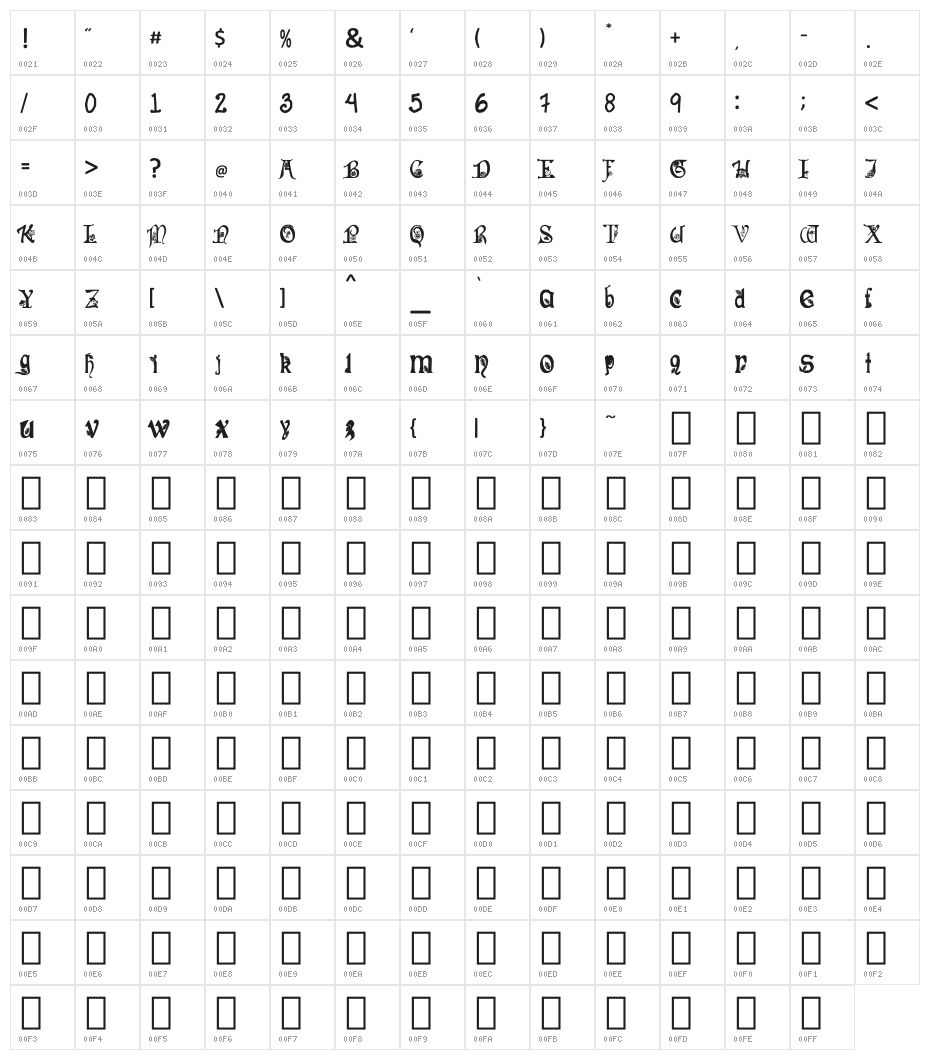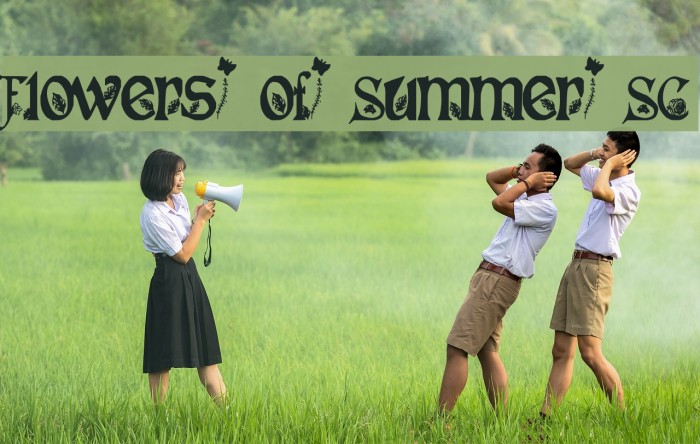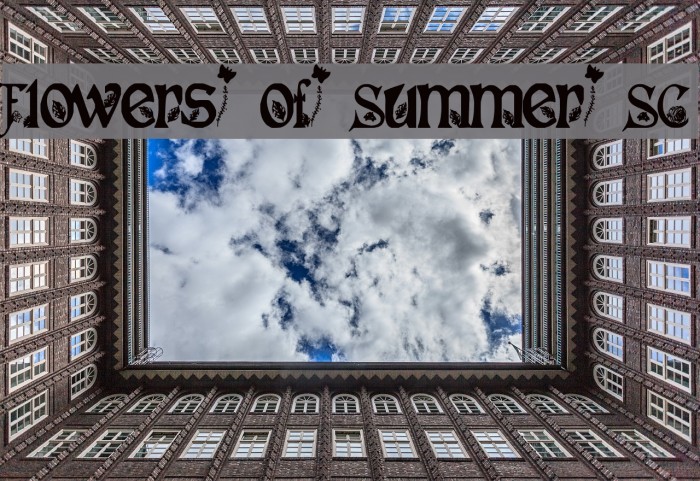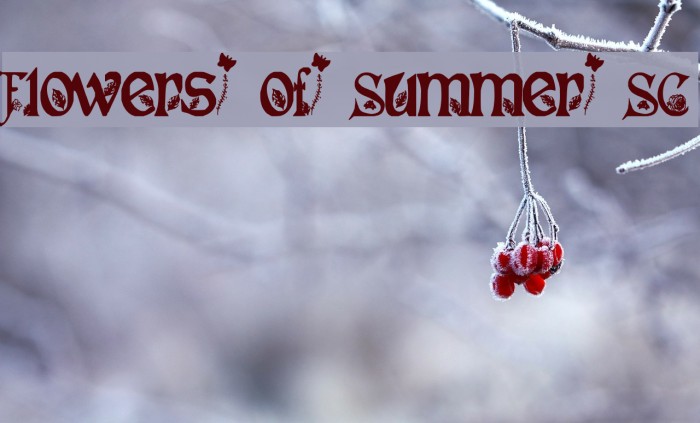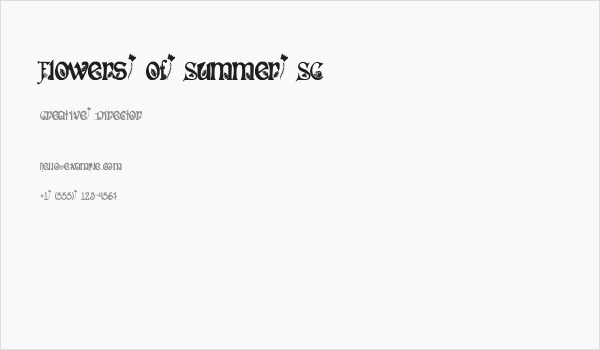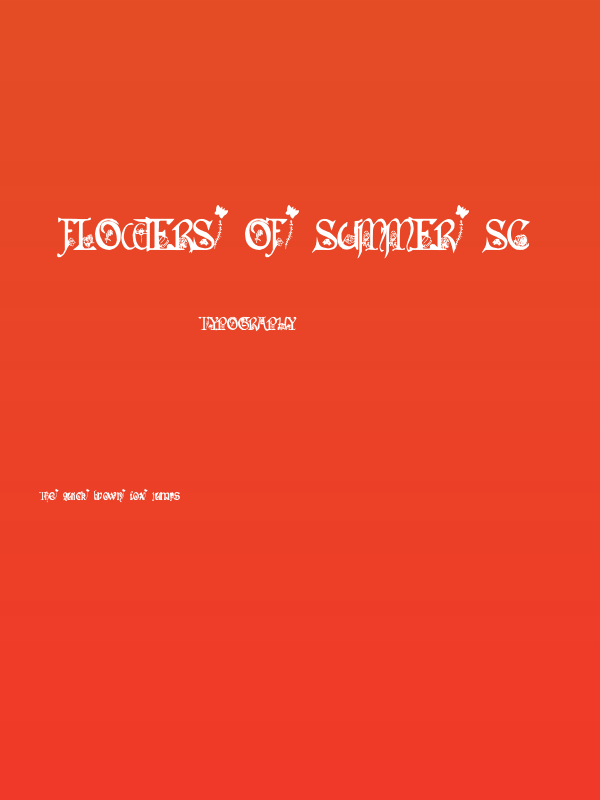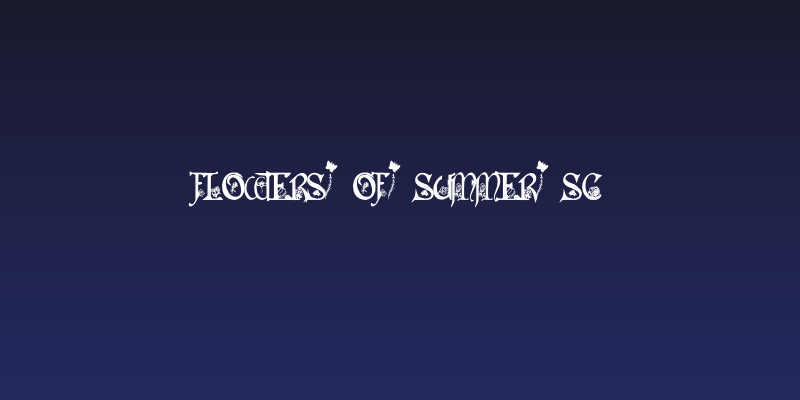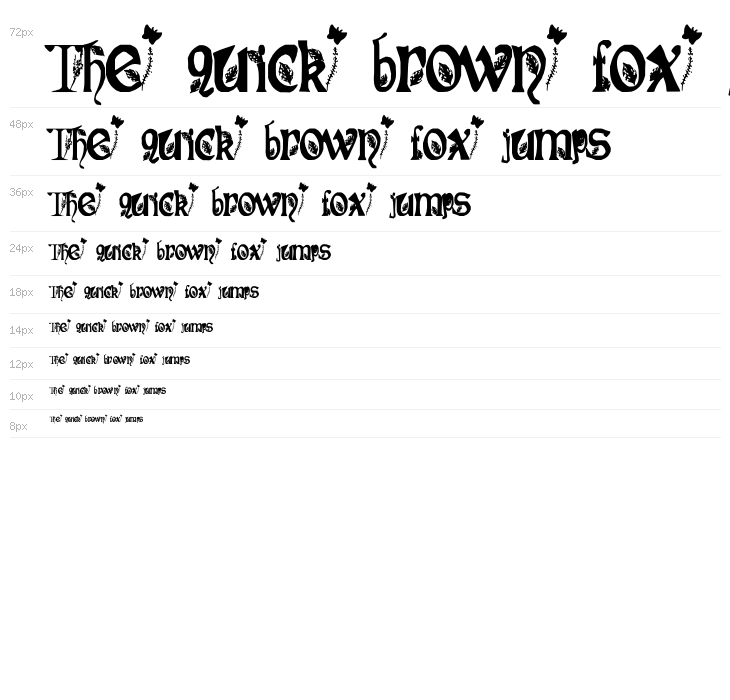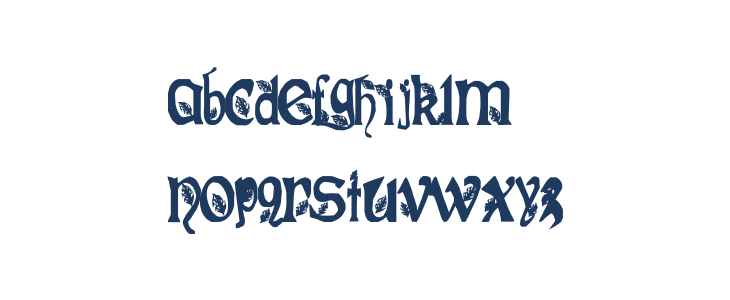
Flowers of Summer SC Font
Flowers of Summer SC Description
This font features a unique and decorative style, incorporating floral elements within each character. The uppercase and lowercase letters are intricately designed, with floral motifs seamlessly integrated into the strokes, giving it an ornate and artistic appearance. The numbers and special characters follow the same decorative theme, ensuring consistency throughout the font. The overall design is bold and eye-catching, making it suitable for projects that require a touch of elegance and creativity.
| Proposed Projects | Ideal for wedding invitations, greeting cards, artistic posters, and branding materials that require a decorative and elegant touch. |